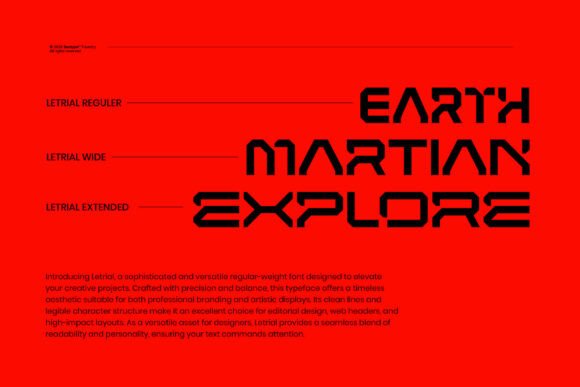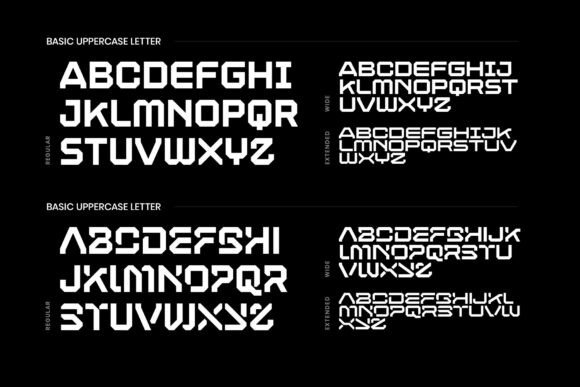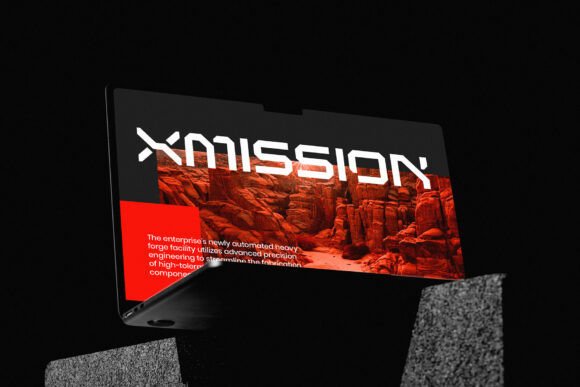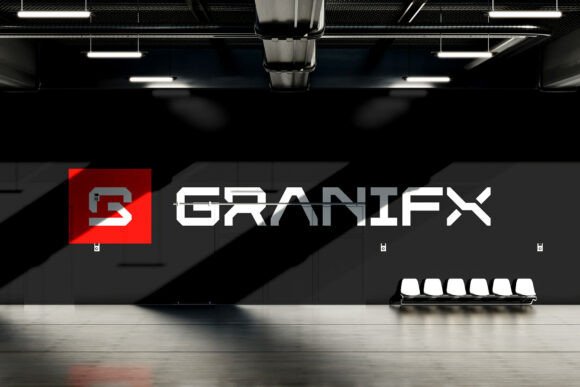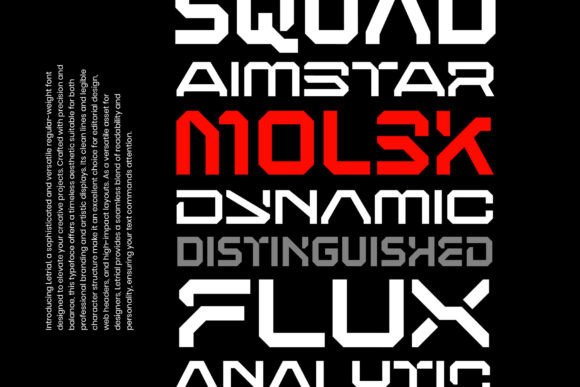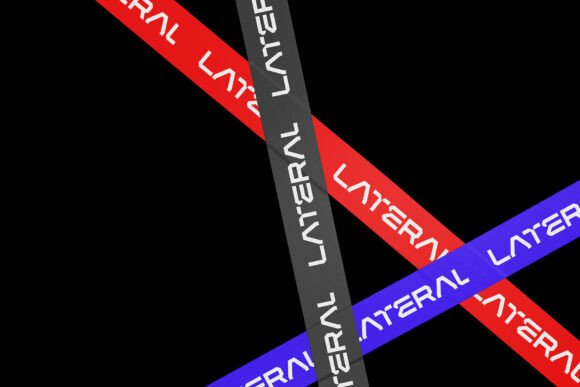
Introduction to Letrial Font
Letrial – Industrial Extended Sans Serif Font Dominate the digital frontier and anchor your text layouts with Letrial, a commanding industrial extended sans-serif font.
Specifically engineered for high-impact visual stability, this cutting-edge typeface comes fully equipped with 3 distinct styles: Regular, Wide, and Extended, offering supreme structural flexibility for complex design grids Framed over industrial metal diamond plating, stark architectural grids, or moody red-lit backdrops, it delivers an undeniable sense of premium power.
Letrial Font offers exceptional quality and versatility, making it a valuable addition to your design toolkit. Whether you’re creating for personal projects or commercial use, Letrial Font delivers professional results.